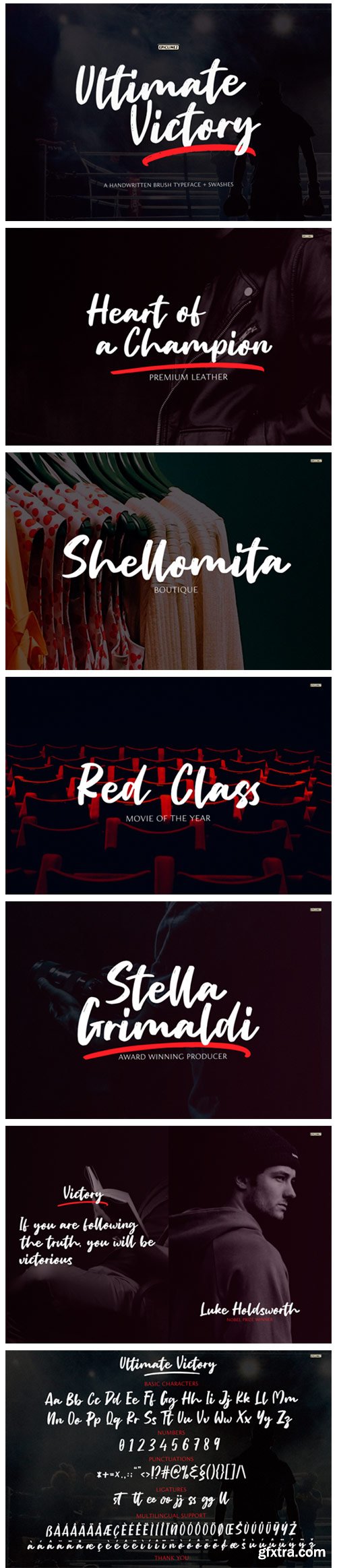
Ultimate Victory Font
Ultimate Victory is a cool and urban styled handwritten font, created with the help of a brush pen. It is the best choice for creating eye catching logos, branding and quotes.